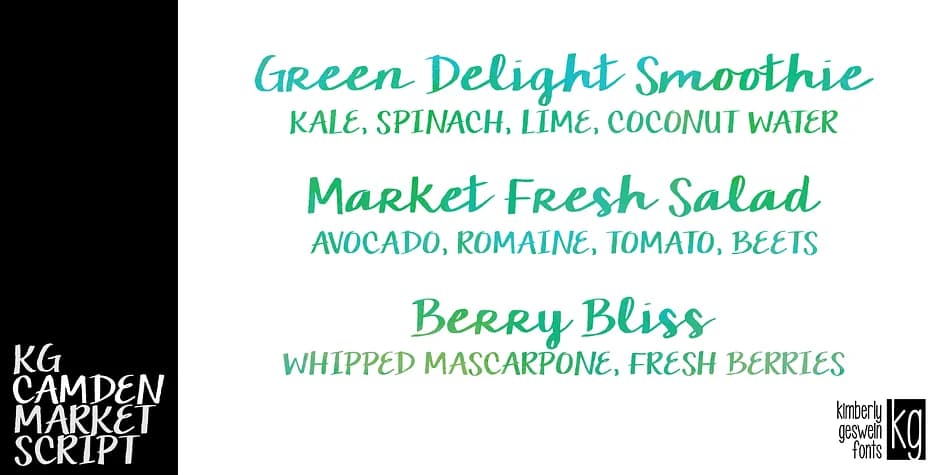
KG Camden Market Script is a script & handwritten font designed by Kimberly Geswein Fonts. KG Camden Market Script is a premium font β see the listing for pricing and license terms. Script & handwritten fonts like KG Camden Market Script work best for wedding invitations, greeting cards, signatures, and elegant branding.
- Elegant, Flowing
KG Camden Market Script Font is a script font that shines as a display or heading face. Pair it with a clean sans-serif or serif font for body text β the contrast creates a clear hierarchy while the two styles stay balanced and easy to read.
KG Camden Market Script Font is a script handwritten typeface by Kimberly Geswein Fonts, ideal for logos, invitations, branding, and creative projects.